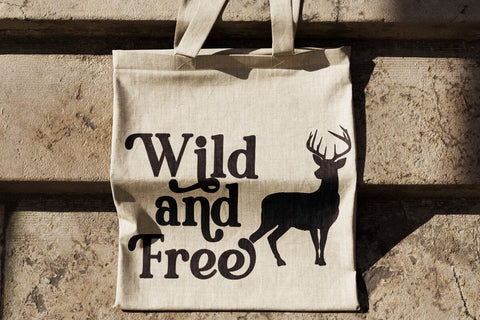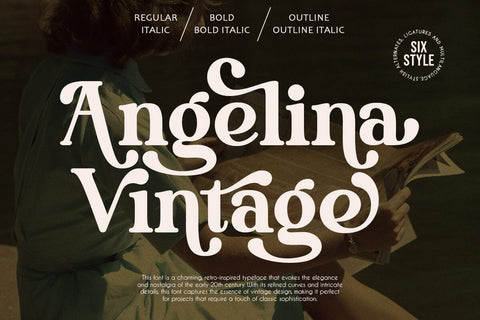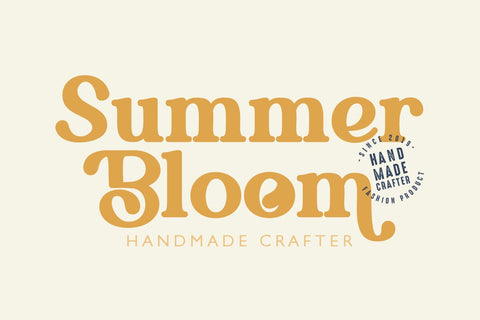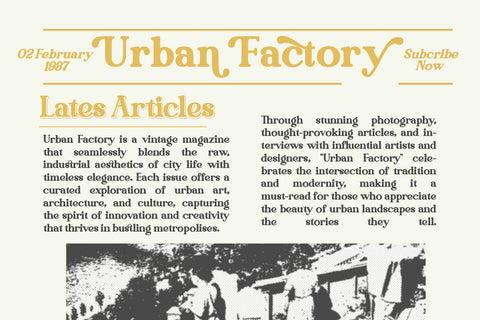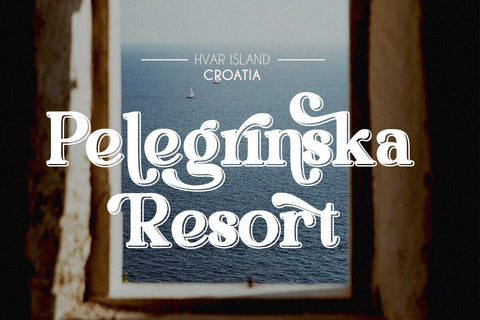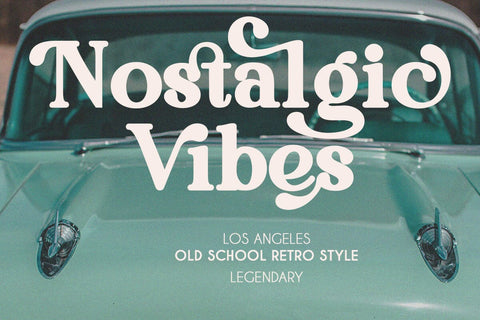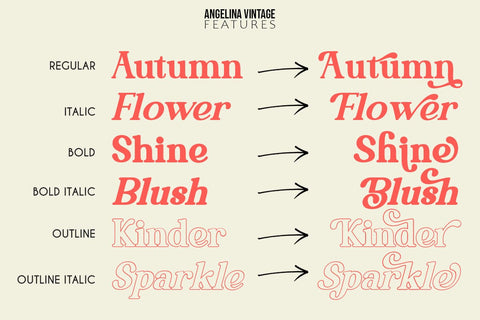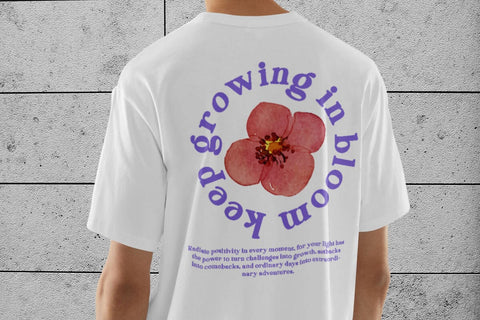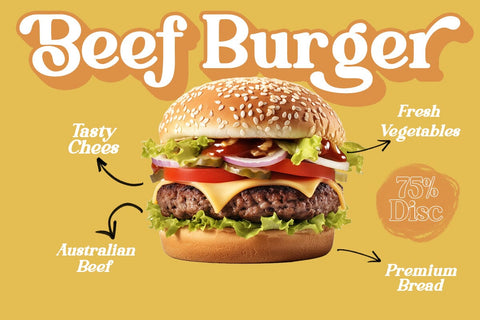
Angelina Vintage-Serif Font
Angelina Vintage- a serif look with simple, clean and visual elegance with smooth curves and beautiful binding, A very versatile font that can be used in large and small sizes. This font is suitable for a variety of projects such as: titles, logos, labels, branding projects, magazines, homeware designs, product packaging, mugs, quotes, posters and much more. It can also be more expressive and fun, thanks to the many alternatives and ligatures that combine harmoniously in this font and make it more attractive and versatile. Try to change alternatives, fasteners and you will get many options for your project which will make it Smooth & beautiful.